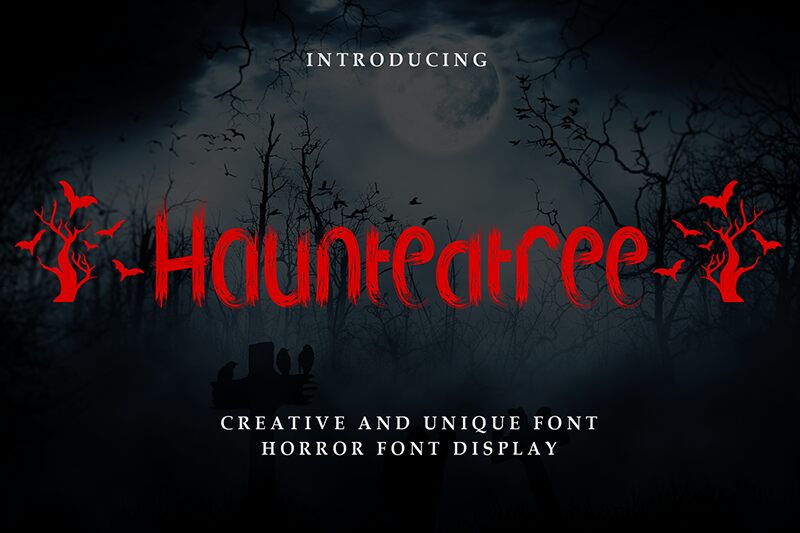
Hauntedtree font by Andi Moz is a free font inspired by the unsettling and thrilling atmosphere of nighttime forests. It combines dramatic, horror-style lettering and subtle artistic additions for further visual interest. All the characters are intense and expressive in their own unique ways. That makes this typeface suitable for all kinds of projects and fun experiments.
Use Hauntedtree to create attention-grabbing headings, banners, posters, and social media posts. It can be used to design unique logos, product packaging, websites, apps, and icons, as well. T-shirt prints, book covers, CD covers, and artistic portfolios are some additional use cases for this font.